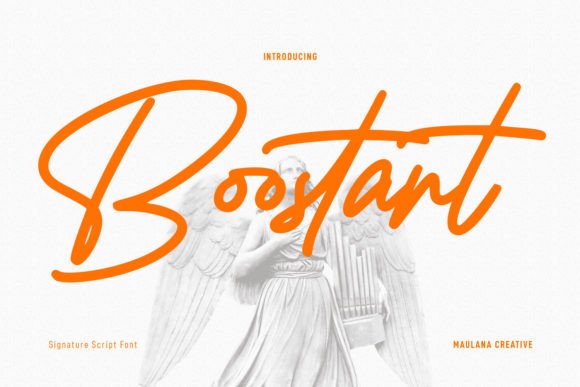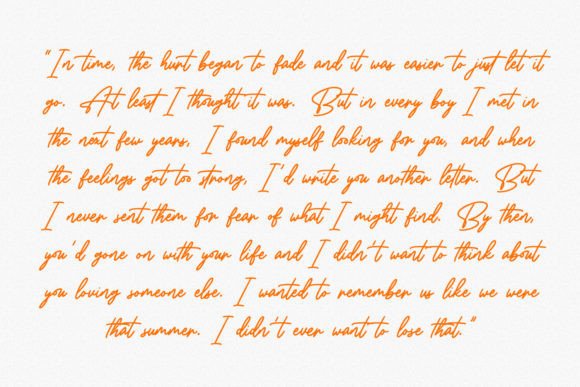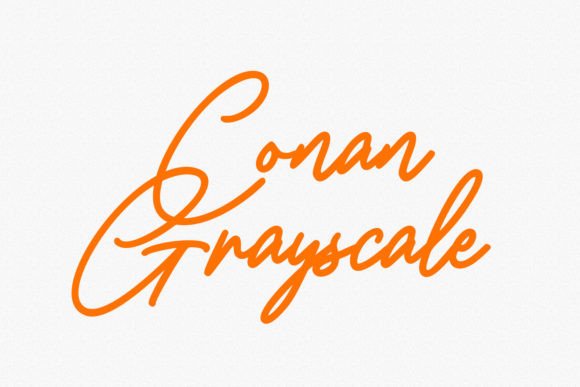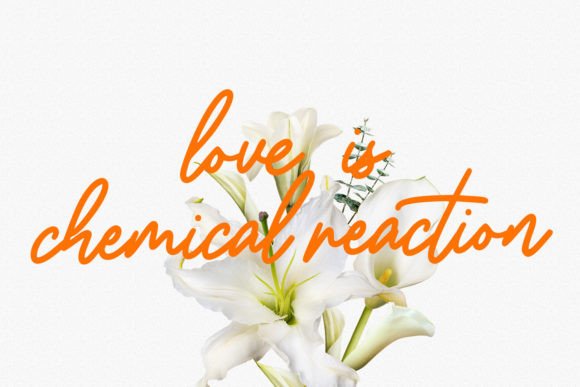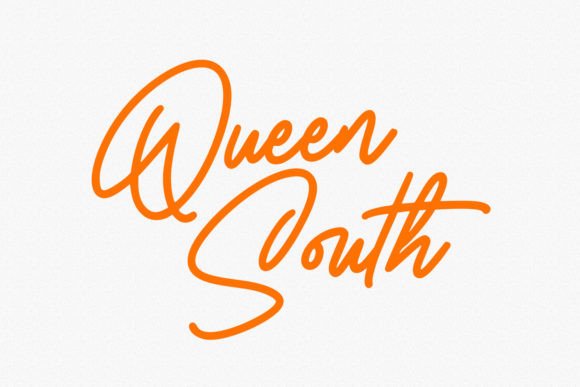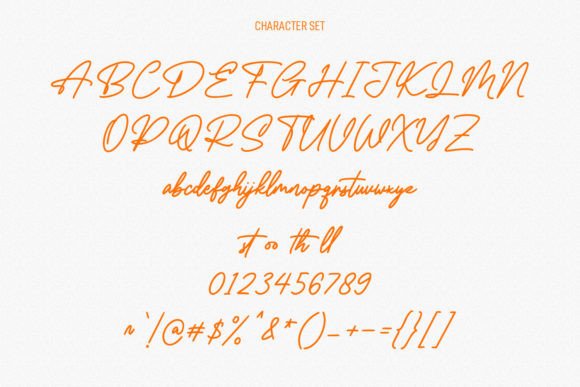
Boostart Font
About Boostart Font
“Boostart” is a stylish and modern handwritten script font that brings a contemporary and sophisticated touch to your creative projects. With its versatility and elegant design, this typeface is perfect for a wide range of applications, including logos, weddings, invitations, quotes, advertisements, print, magazines, and more.
The allure of “Boostart” lies in its stylish and modern script. Its sleek lines and elegant characters create a visually captivating and sophisticated experience, making it an ideal choice for projects that aim to convey a sense of refinement and contemporary style.
One of the standout qualities of “Boostart” is its versatility. Whether you’re using it for branding, designing elegant wedding invitations, crafting memorable quotes, creating impactful advertisements, or working on various other creative projects, “Boostart” seamlessly integrates into your creative vision.
This font’s ability to enhance a wide range of design applications sets it apart. Whether you’re working on personal or professional endeavors, “Boostart” brings a sense of style and modernity to your work that resonates with a diverse audience.
In summary, “Boostart” is more than just a font; it’s a versatile and stylish creative tool that can elevate your projects. Whether you’re a professional designer seeking a font with contemporary elegance or an enthusiast passionate about crafting and design, “Boostart” is here to make your designs shine with its modern and sophisticated script. Embrace the style of “Boostart,” and watch your creativity flourish with a contemporary flair.